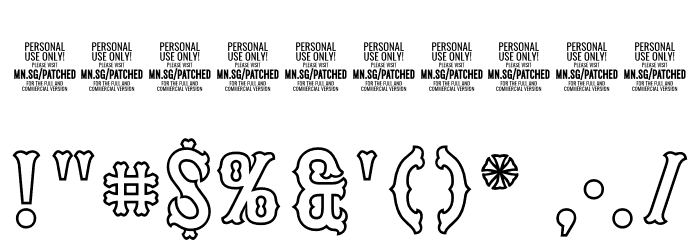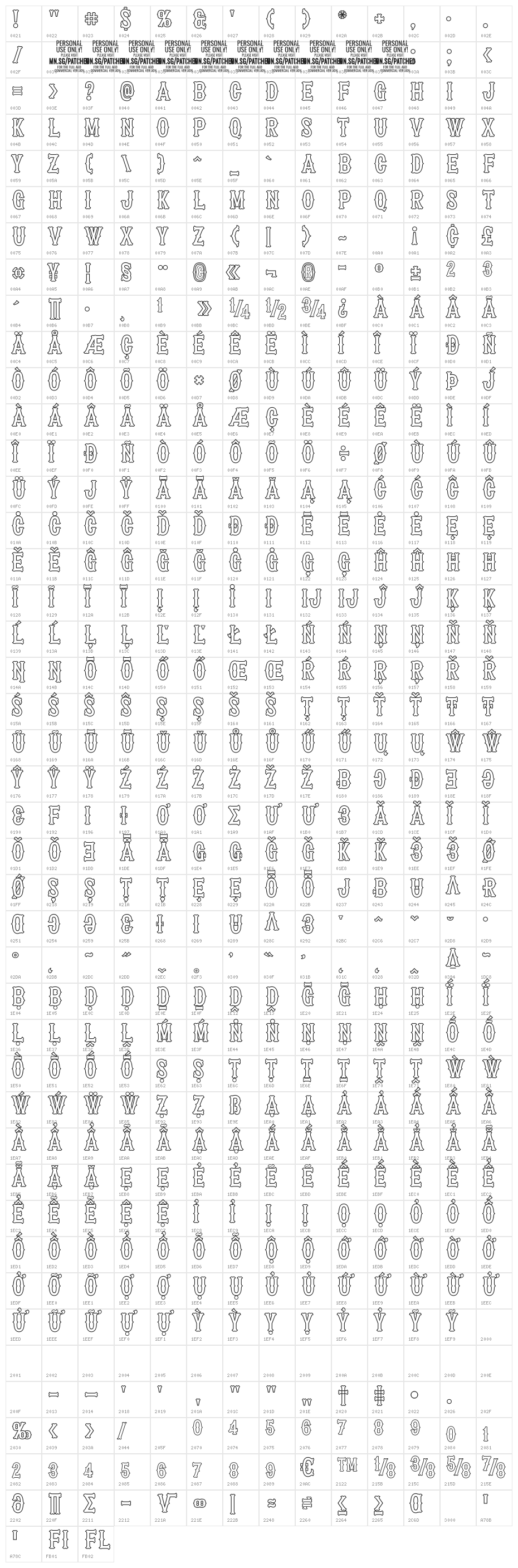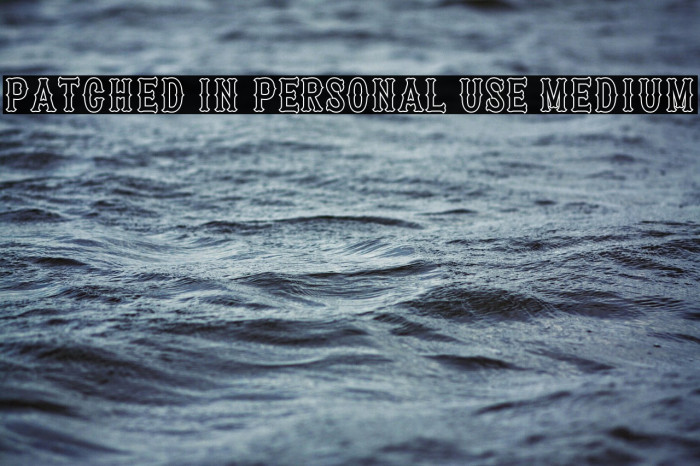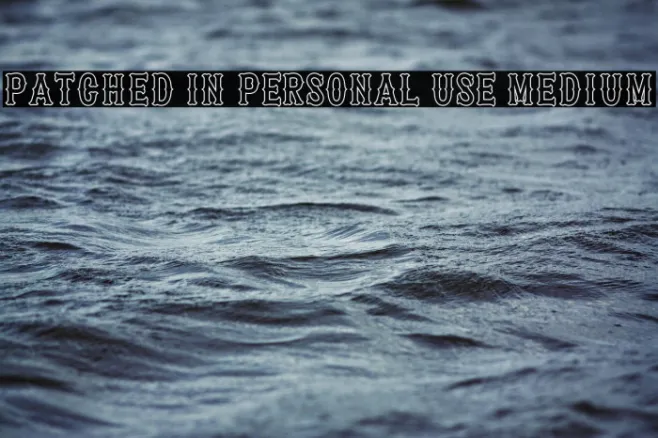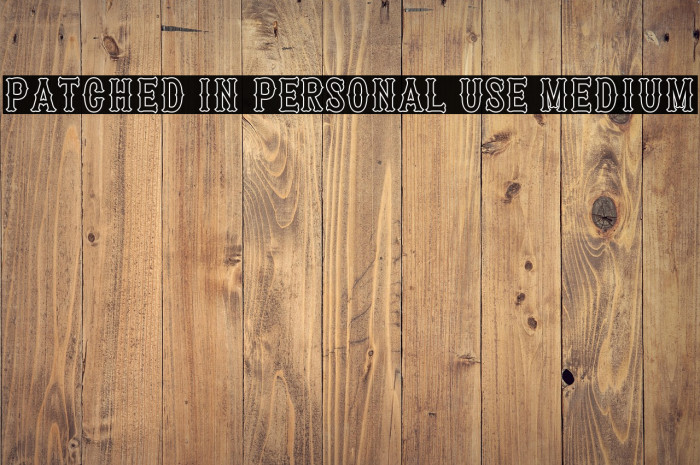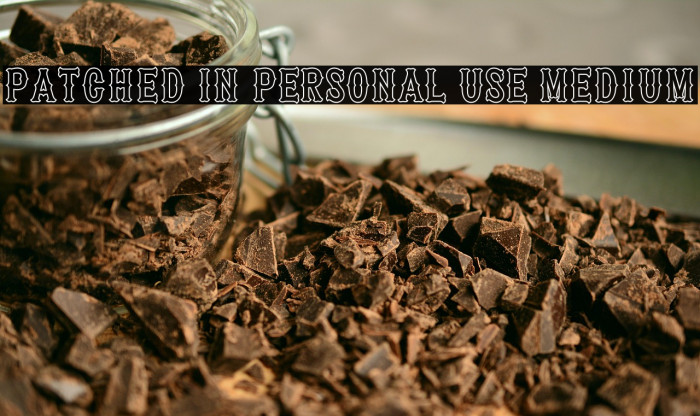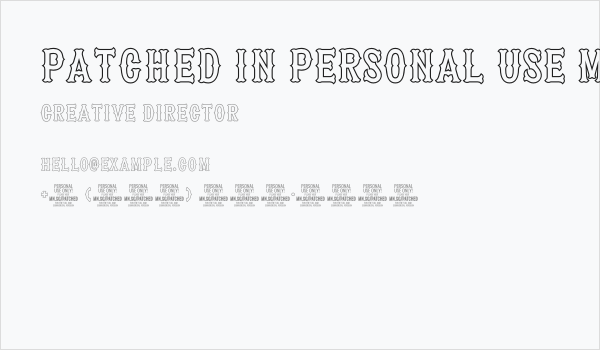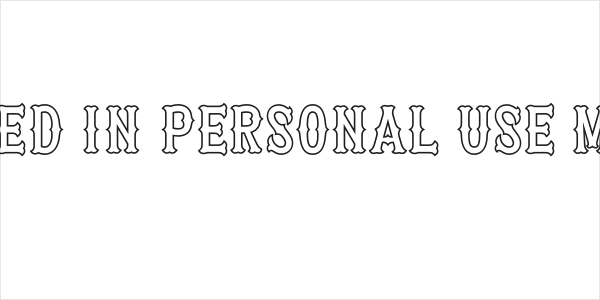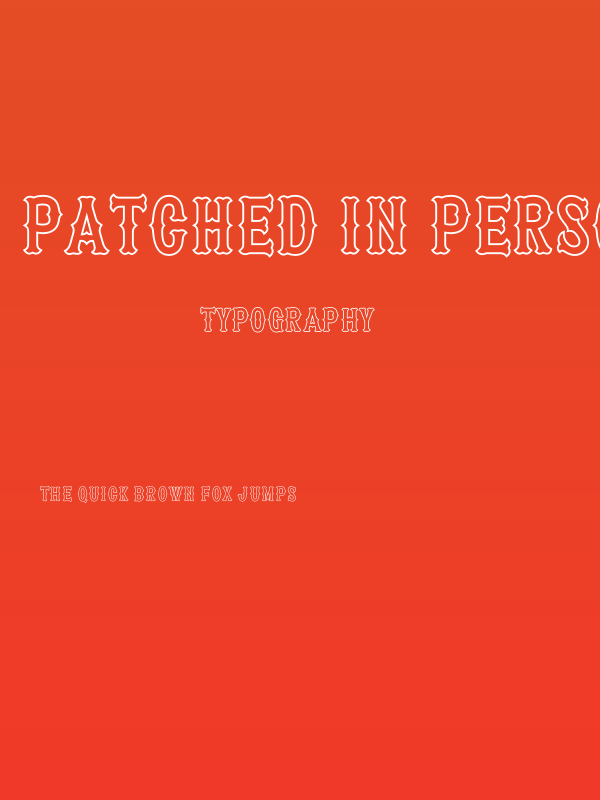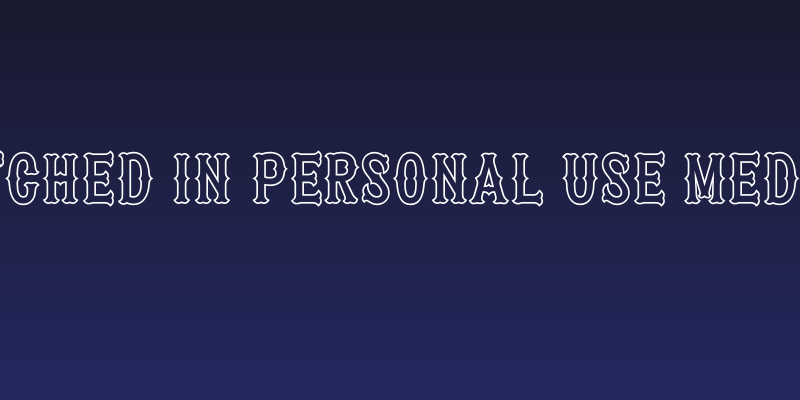
Patched In PERSONAL USE Medium Font
Patched In PERSONAL USE Medium Description
This font features a bold, decorative style with a unique outline effect that gives each character a distinctive, layered appearance. The uppercase letters are designed with a strong presence, making them ideal for attention-grabbing headlines or titles. The characters have a slightly condensed width, which adds to their striking visual impact. The font includes a full set of uppercase letters, numbers, and a variety of special characters, all maintaining the same decorative outline style. The contrast in stroke thickness is medium, providing a balanced look that is both bold and readable. This font is perfect for projects that require a vintage or retro aesthetic, such as posters, logos, or branding materials.
| Proposed Projects | Posters, logos, branding materials, vintage-themed designs. |